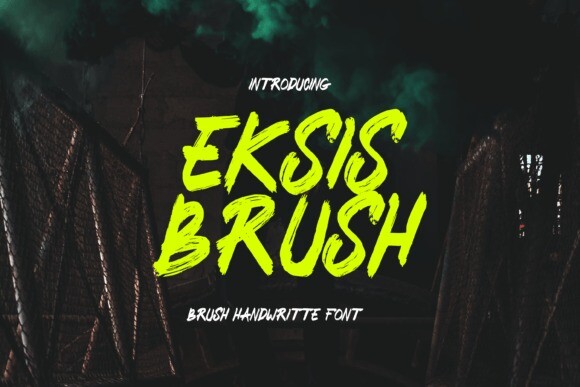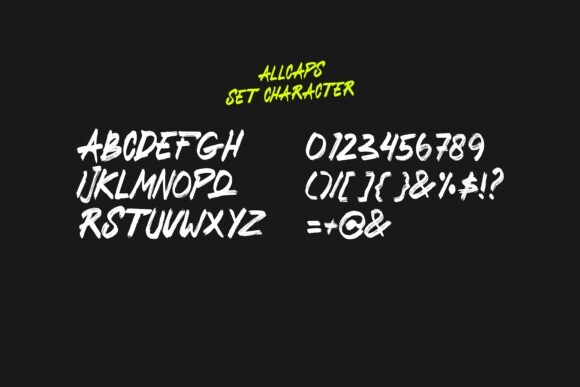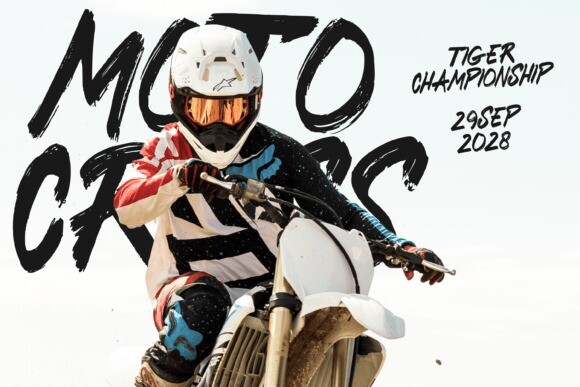
Eksis Brush Font
Eksis Brush Font is an ideal font for flyers, brochures, business cards, logos, and other design projects should be legible, versatile, contemporary, visually pleasing, and feature a broad character set, making it a reliable choice for a wide array of design applications.